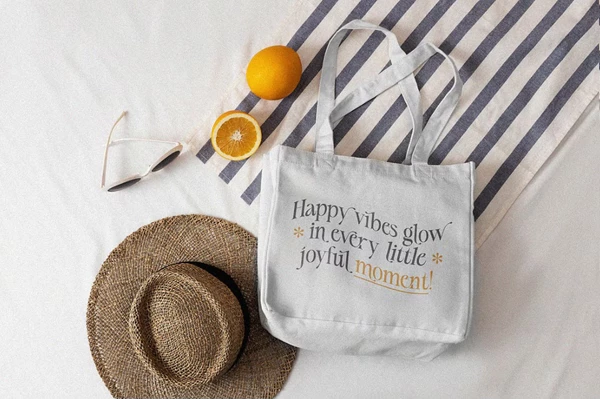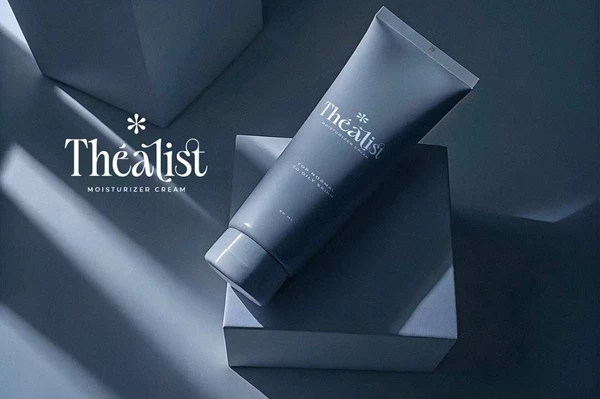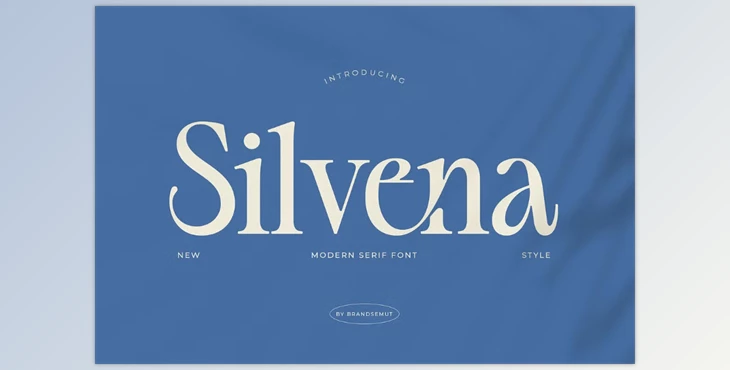
Silvena – Modern Elegant Serif Font:
Silvena is a luxury serif font. It's modern yet classic, featuring a fabulous combination of curves and strong contrasts that marry the best of the past and present, making this font the ultimate luxury version for branding and identity, editorial, and creative endeavors that require a sophisticated and high-quality look.
Silvena is a versatile serif font that's incredibly powerful in print and digital. Designers, entrepreneurs, and creatives choose Silvena when they're ready to elevate their brand to the next level. Ideal for branding and logos, magazine headers, packaging designs, and web applications, Silvena is the perfect choice where a rich and luxurious typeface presence is desired.
Perfect For:
- Branding & Identity
- Editorial & Print Design
- Web & Digital
- Packaging Design
- Creative Use
Why You Should Use Silvena:
- Luxury modern serif font
- Editorial & Print Design for magazines and more
- Web Applications for conversion
"Silvena – Modern Elegant Serif Font" Samples: